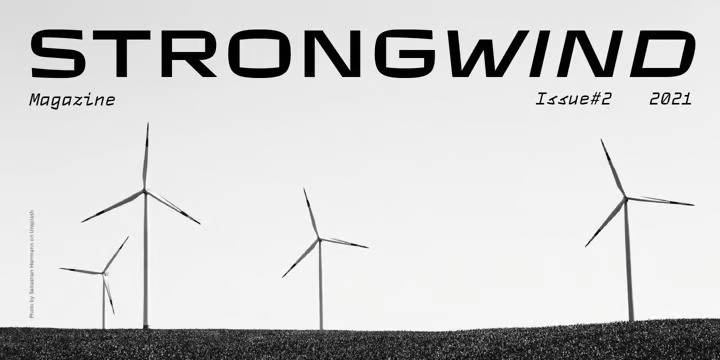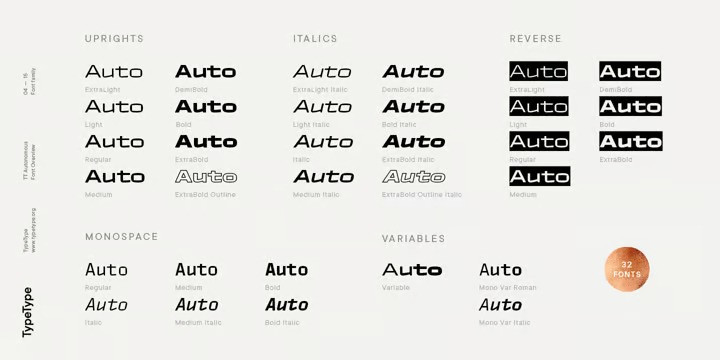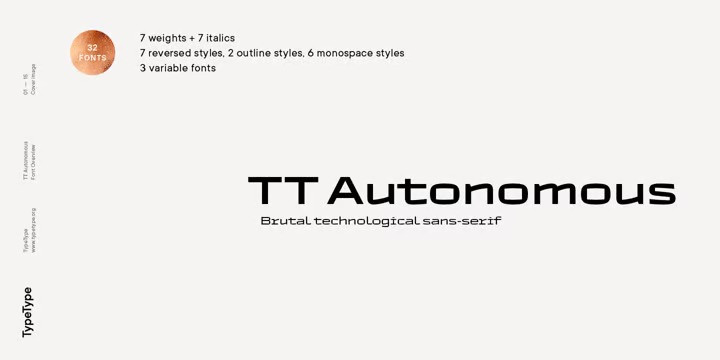
TT Autonomous Font
TT Autonomous Sans Serif Font. It is a modern brutal technological sans-serif. The basic visual characteristic of the typeface is the noticeable squareness of the characters and angular internal space. In addition, the typeface proportions tend to appear monospaced, but they are not really monospaced. The width of the characters is inspired by automobile logotype proportions, which are mostly rather wide.
The idea was born in Amsterdam when one of our colleagues took the official electric taxi at the Schiphol airport. At the moment we were thinking about creating a new wide sans-serif, and an interesting question emerged during the trip: what font would be associated with autonomous electric transport. Then we thought it would also be nice to expand this theme visually.
We could not disregard the fact that code lines in software for autonomous cars are traditionally typed using monospaced fonts and added a special monospaced subfamily to the TT Autonomous typeface. Thanks to the squareness of the characters inherited from the main family and the real monospace properties, the character forms in the subfamily turned out very specific and interesting. This is especially true for oblique monospaced fonts, which are true italics.
In addition, we created a couple of outline styles which are great for use in titles and large inscriptions and perfectly match the basic family and the monospaced family. As opposed to outlines that can be created in graphic editors, in TT Autonomous Outline we worked through the narrow and questionable spots, thanks to which the font looks professionally complete and harmonious.
As from the very beginning, the font was developed with tomorrow’s technologies in mind, we could not miss addressing variability and creating a variable font. TT Autonomous has variable versions for both the basic and the monospaced subfamilies.
TT Autonomous is a complex font family that consists of 32 fonts intended to solve a broad range of design tasks. Overall, the font family features 14 regular styles, 6 monospaced styles, 7 reversed styles, 2 outline styles and 3 variable fonts. The number of glyphs varies from 630+ in the monospaced font to 790+ in the basic styles. The basic subfamily has alternates, ligatures, old-style figures, slashed zeroes, and many other useful features.